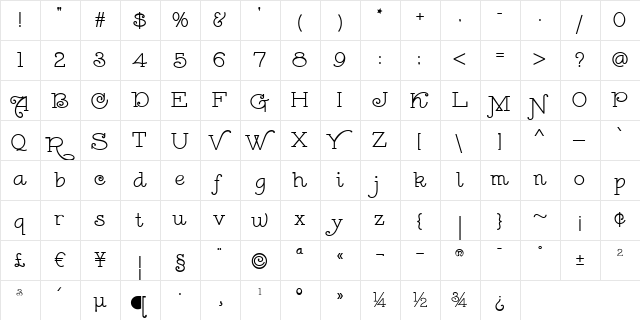
Leokadia Deco Regular
Design Context for Leokadia Deco Typeface
Leokadia Deco is a composed and adaptable typeface that performs quietly and consistently across a wide range of design contexts.